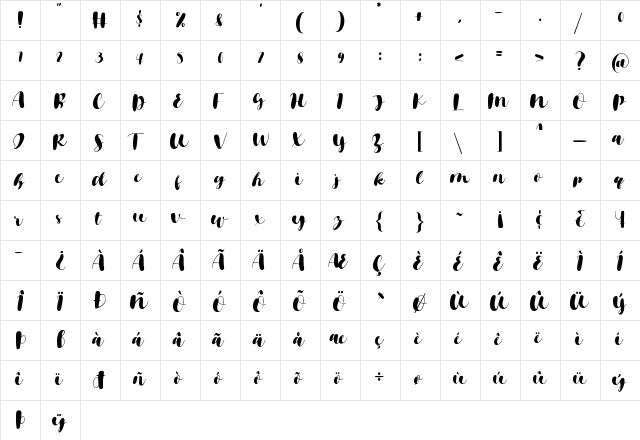
Brownies Sugar Regular
| Designer | Muhamad Yusron Billah |
Design Context for Brownies Sugar Typeface
Brownies Sugar is a composed and adaptable typeface that performs quietly and consistently across a wide range of design contexts.